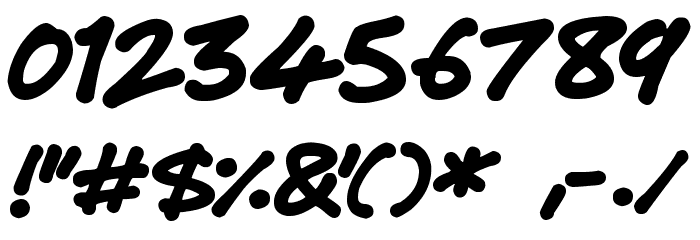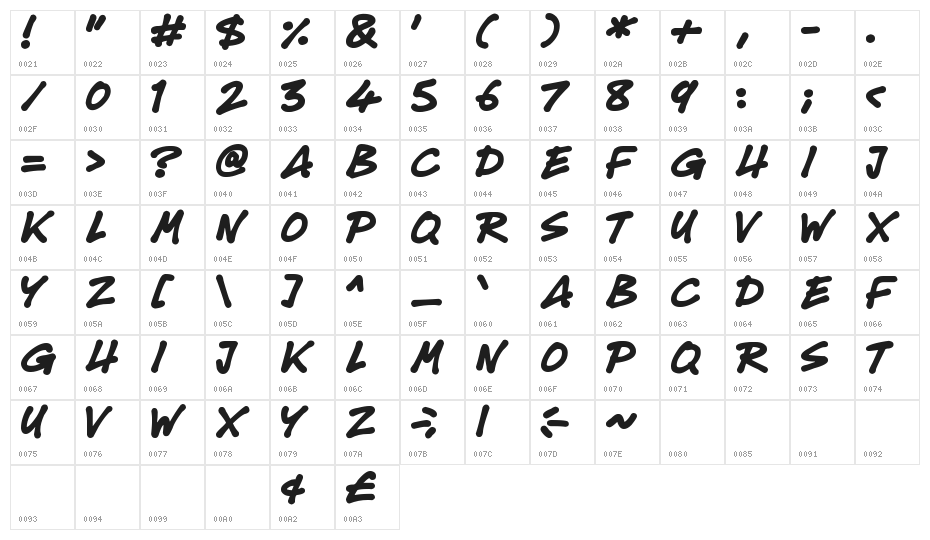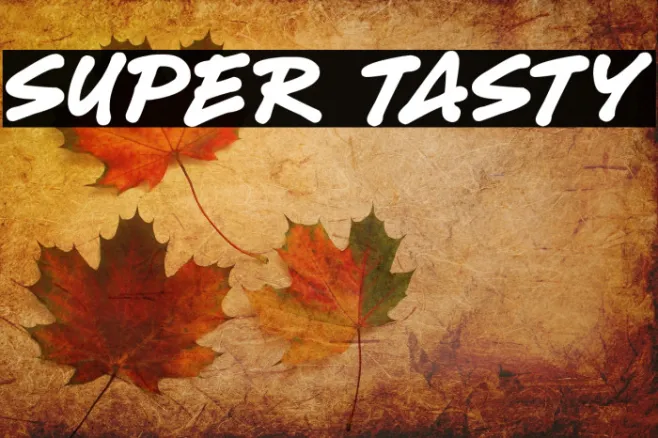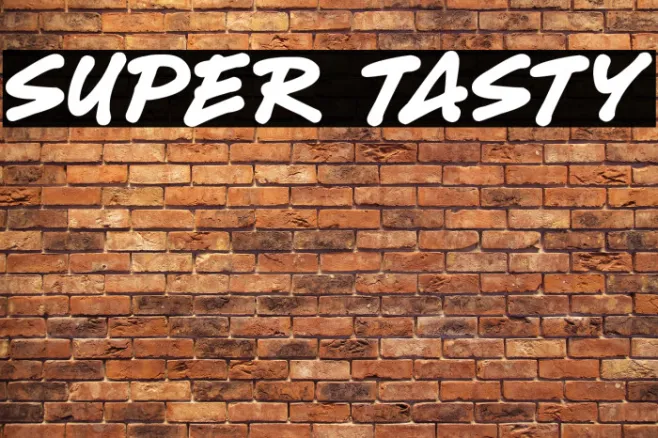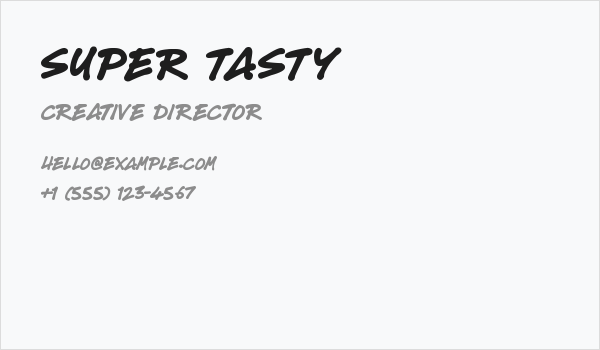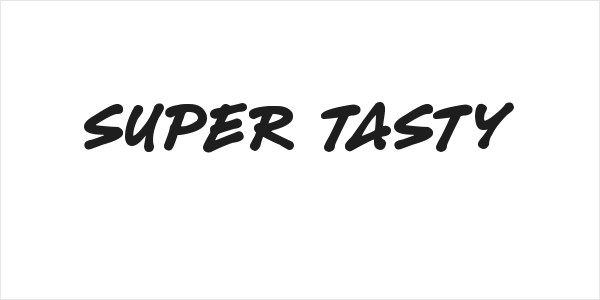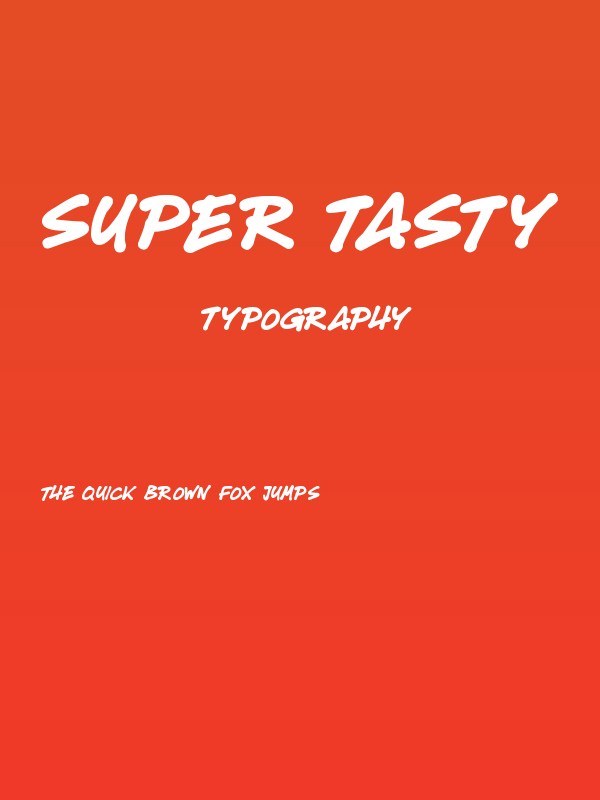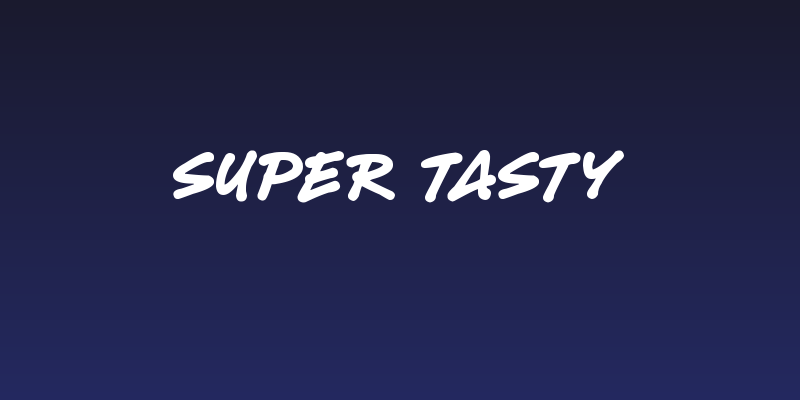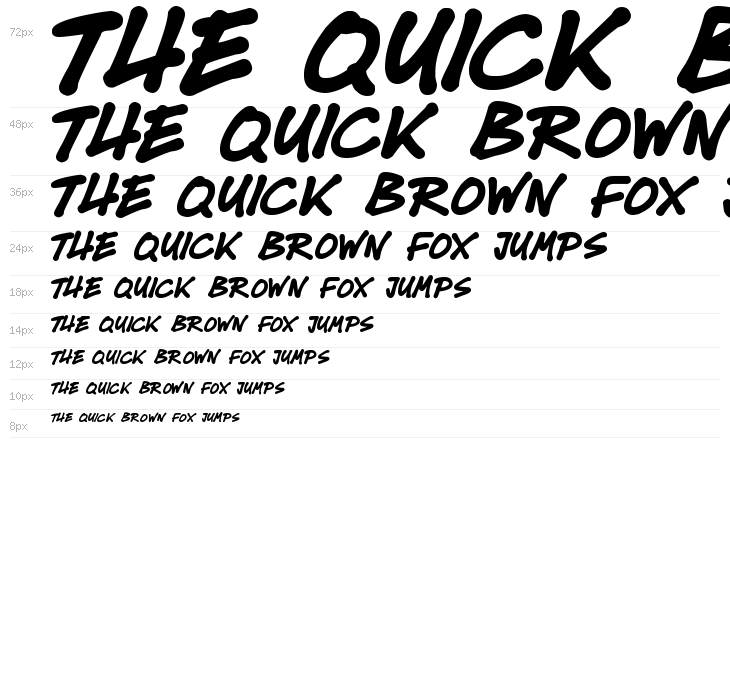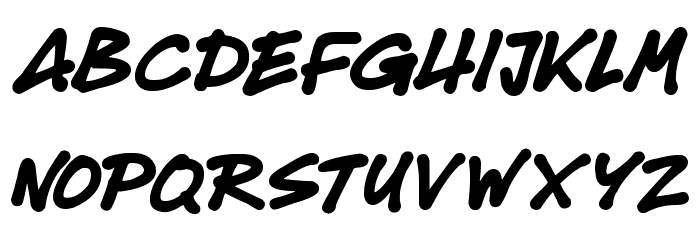
Super Tasty Font
Super Tasty Description
This font features a bold, energetic script style with a playful and dynamic appearance. The letters are slightly slanted, giving a sense of motion and fluidity. The strokes are thick and rounded, contributing to a friendly and approachable look. Each character is distinct, yet they flow together seamlessly, making it ideal for creating eye-catching headlines or logos. The numbers and special characters maintain the same lively style, ensuring consistency across different uses. The overall design is modern and expressive, perfect for projects that require a touch of personality and flair.